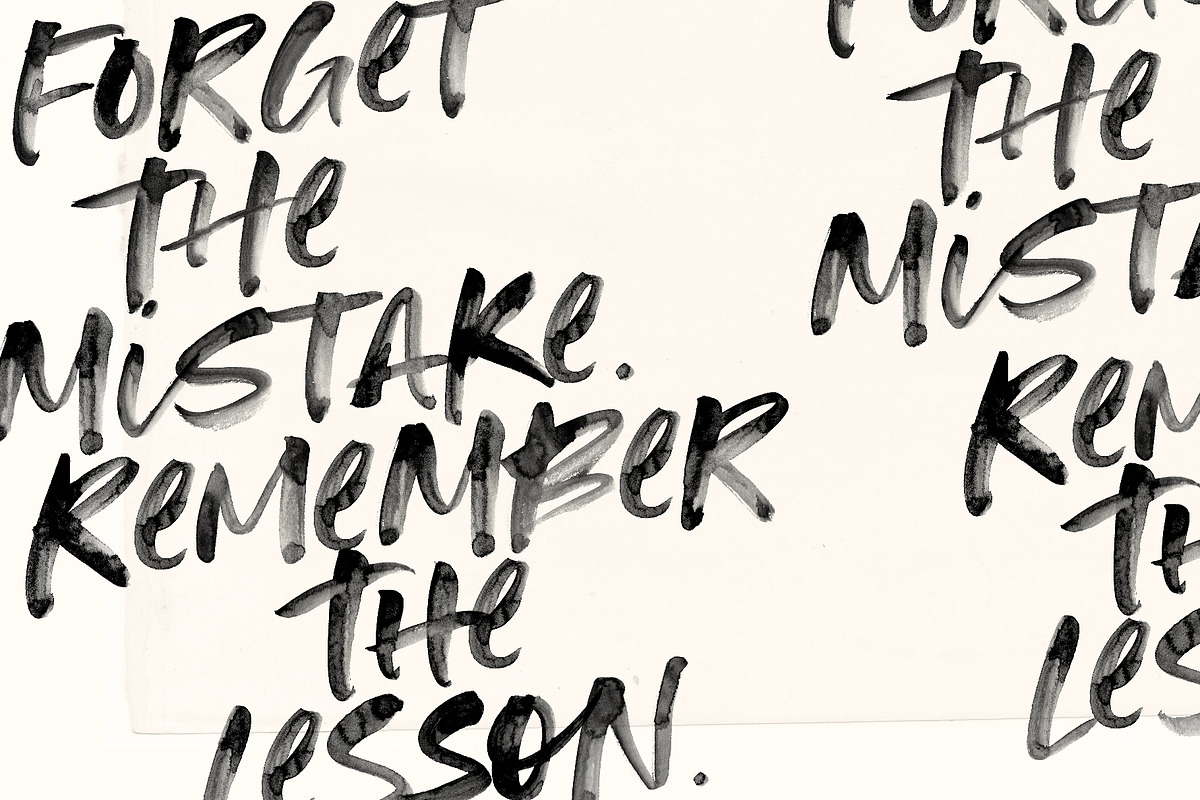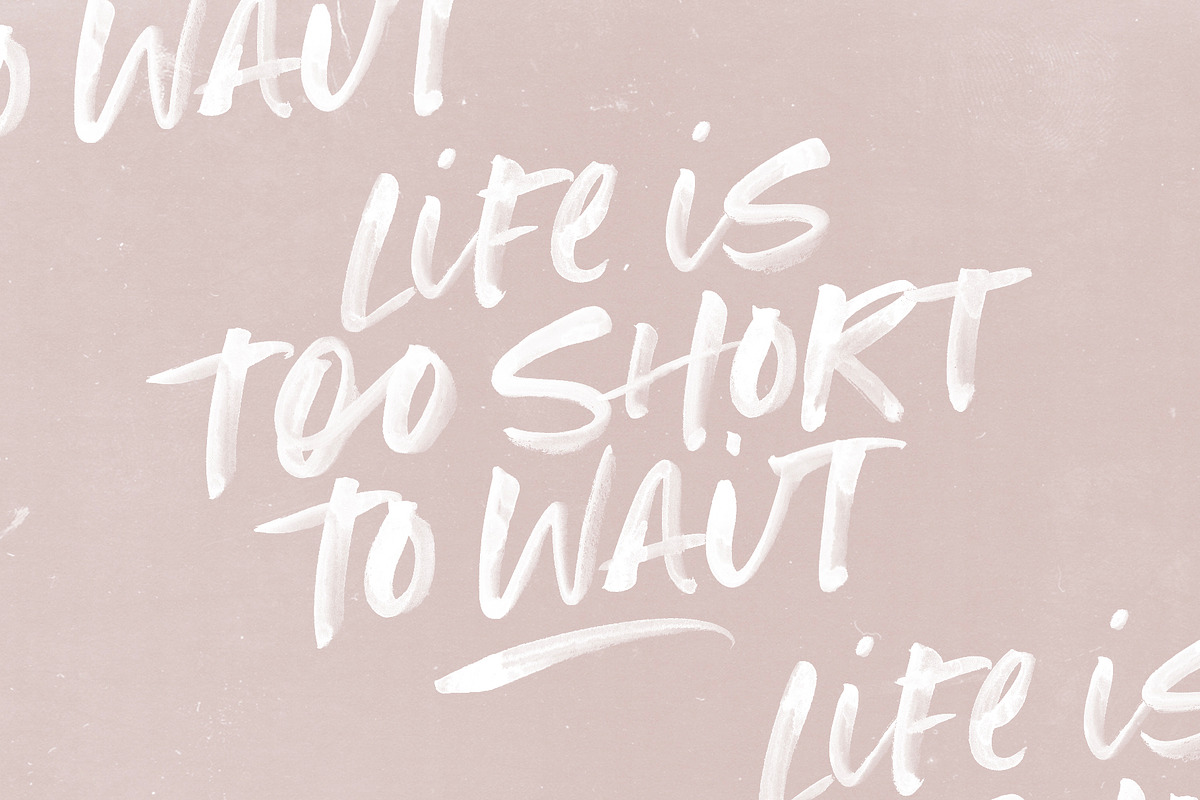
Hot Mess is a super realistic hand-brushed SVG font just raring to get going. Hot Mess uses new Opentype-SVG font technology to provide high-resolution watercolor paint strokes completely built into the font as a transparency – just simply type away and let the font do it’s magic. It’s guaranteed to leave a lasting impression on social media posts, advertisements, posters, product packaging & more.